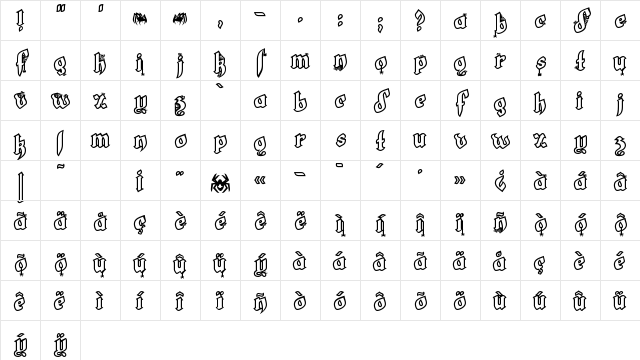
LRT White Fang Regular Free Font
LRT White Fang Regular
Designer: Lauren Thompson
Design Context for LRT White Fang
LRT White Fang is a composed and adaptable typeface that performs quietly and consistently across a wide range of design contexts.